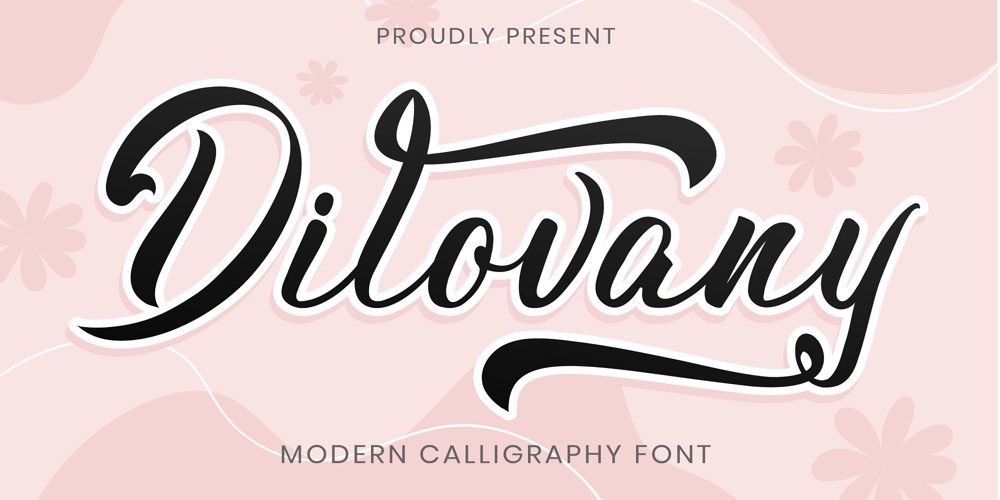
Dilovany Font Family was designed by Tio Yulianto and published by Javatypestd. Dilovany contains 1 styles and family package options. Dilovany is a Modern Calligraphy font that will give a beautiful impression to your designs Dilovany would perfect for photography, watermark, social media posts, quotes, logos & branding, invitation, product designs, label, stationery, wedding designs, product packaging, special events, or anything that needs handwriting taste.What’s Included :- Standard glyphs- Ligature and Stylish Set- Works on PC & Mac- Simple installations- Accessible in Adobe Illustrator, Adobe Photoshop, Adobe InDesign, even work on Microsoft Word.- PUA Encoded Characters – Fully accessible without additional design software.- Fonts include multilingual supportThank you for your purchase!